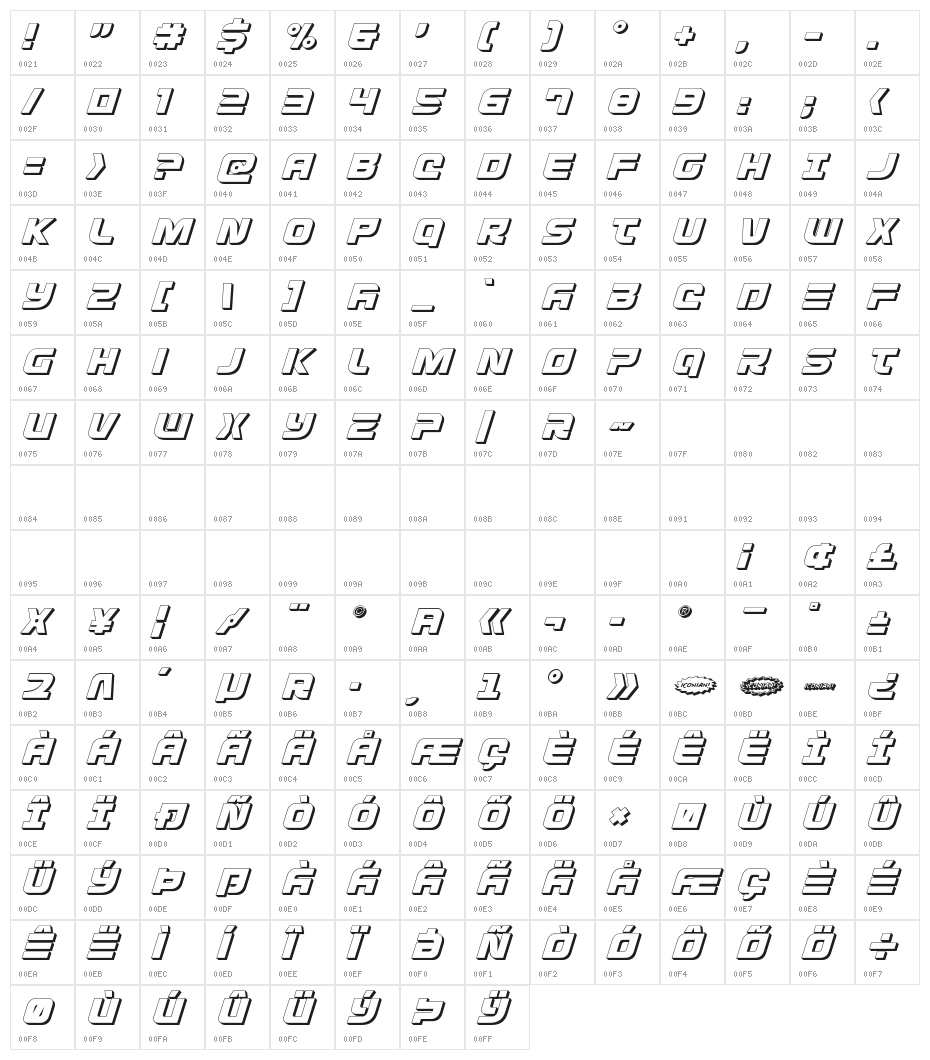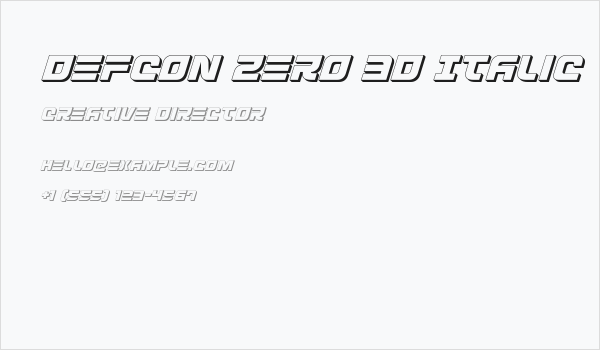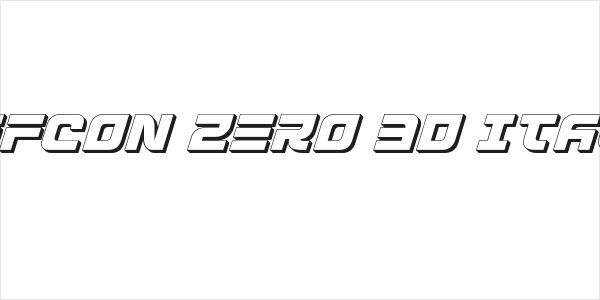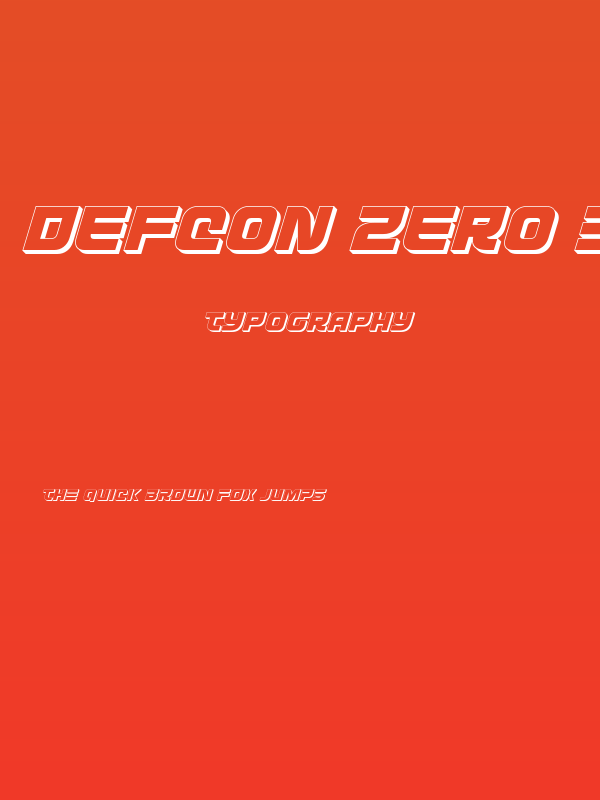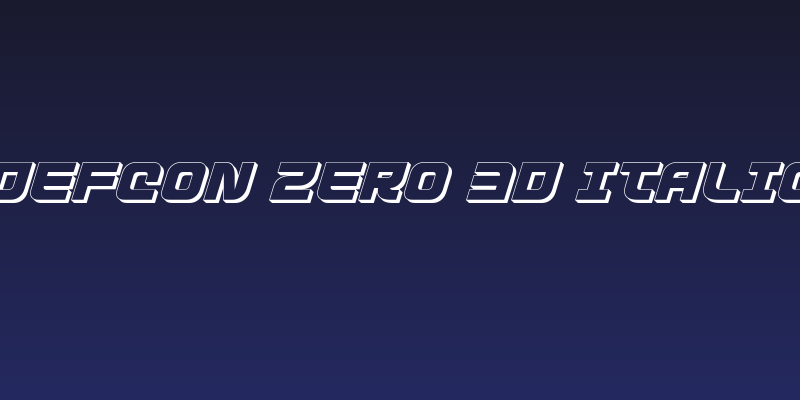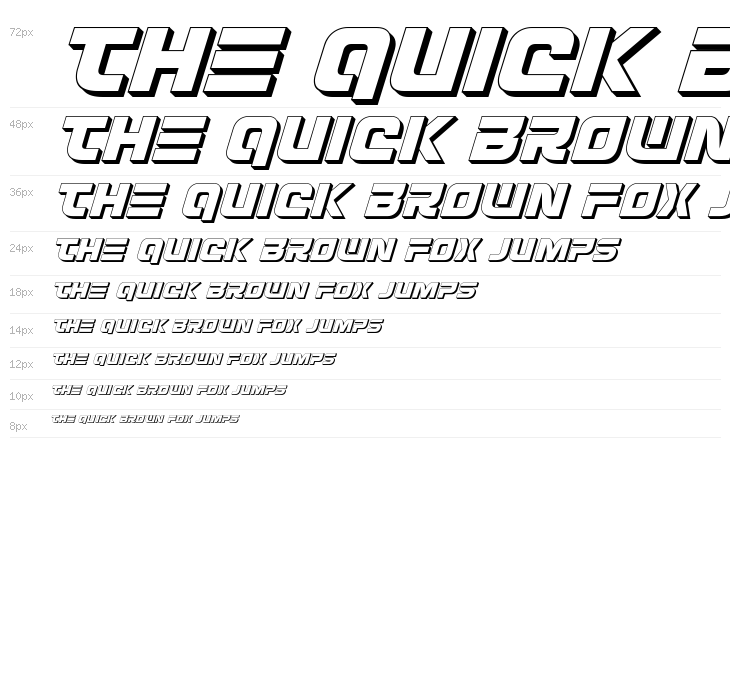
Defcon Zero 3D Italic Font
Defcon Zero 3D Italic Description
This font features a bold, three-dimensional style with a strong italic slant, giving it a dynamic and futuristic appearance. The characters are outlined with a shadow effect, enhancing the 3D illusion. The design is geometric and angular, with consistent stroke widths that contribute to its modern and technical feel. The uppercase and lowercase letters maintain a uniform style, while the numerals and special characters are crafted to match the overall aesthetic. This font is ideal for projects that require a bold and impactful visual presence.